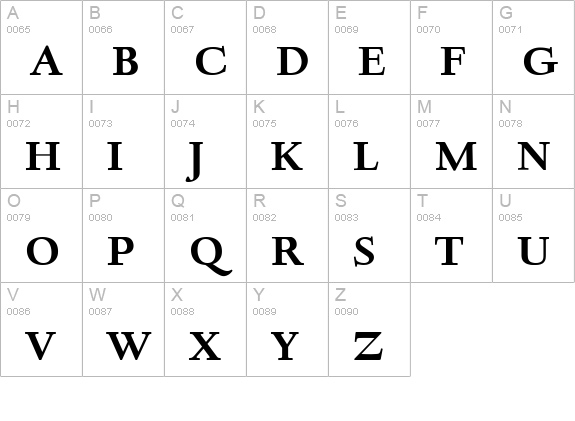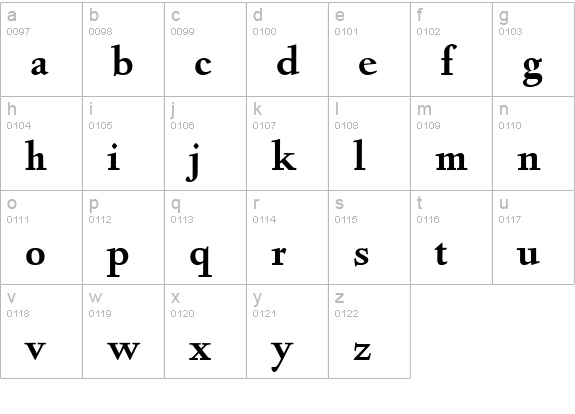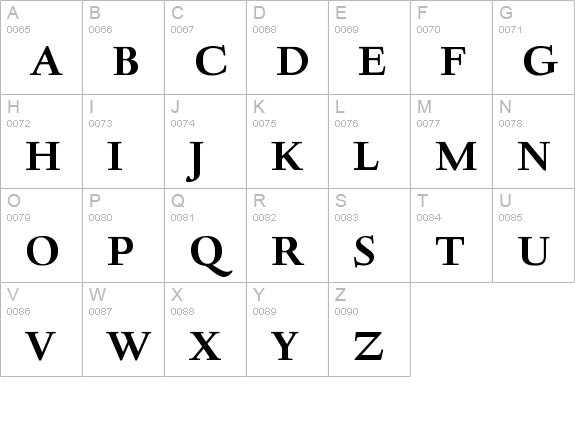
Deepdene Bold Font Details
Deepdene Bold is a strong, high-contrast variant in the Deepdene typeface family \xE2\x80\x94 well suited to headlines, attention-grabbing titles, and strong calls-to-action.
Deepdene Bold is a striking and dynamic font that exudes confidence and modernity. Its bold and impactful design makes it ideal for headlines, titles, and other prominent text in various design projects. The strong and clean lines of Deepdene Bold give it a sophisticated and professional look that is sure to make a lasting impression. What sets Deepdene Bold apart is not just its stunning design, but also the fact that it is available for free download at FontsMarket.com. This means that you can easily incorporate this stylish font into your projects without any additional cost. Whether you're working on branding, advertising, or any other creative endeavor, Deepdene Bold is a versatile and eye-catching font that will elevate your designs to the next level. Download Deepdene Bold for free today and add a touch of elegance and boldness to your work.